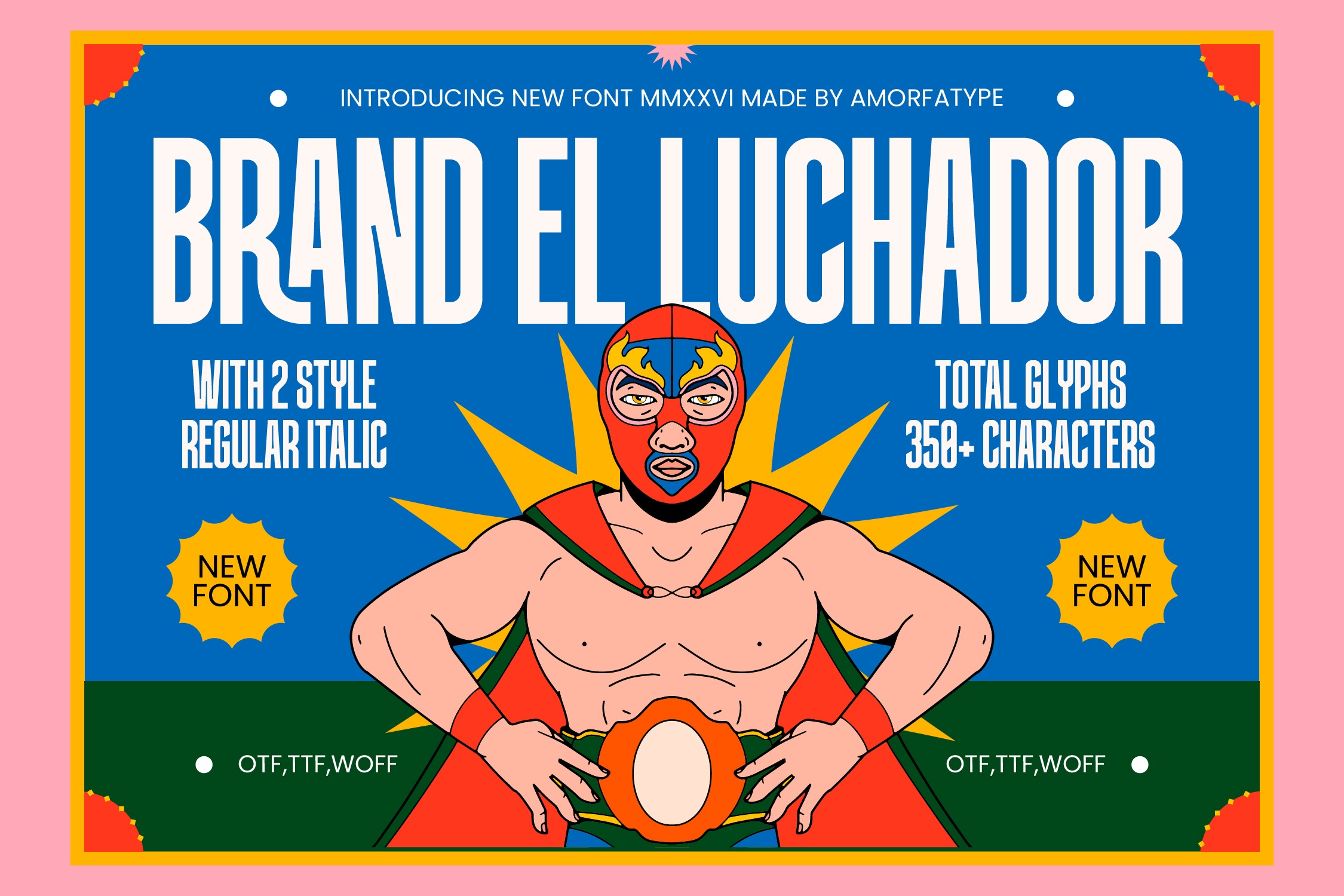
Brandel Luchador – Condensed Sans Serif Font
Brandel Luchador – Condensed Sans Serif Font is a stylish typeface that enhances visual appeal and works effortlessly in many design contexts. Brandel Luchador Font is a modern sans-serif typeface that captures a bold and athletic spirit with its clean, condensed letterforms. Designed to stand out, it delivers a strong visual impact while maintaining clarity and balance, making it perfect for eye-catching headlines and branding projects.
With its narrow structure and sporty aesthetic, Brandel Luchador is especially suited for posters, logos, and dynamic visual compositions that require a confident and energetic tone.